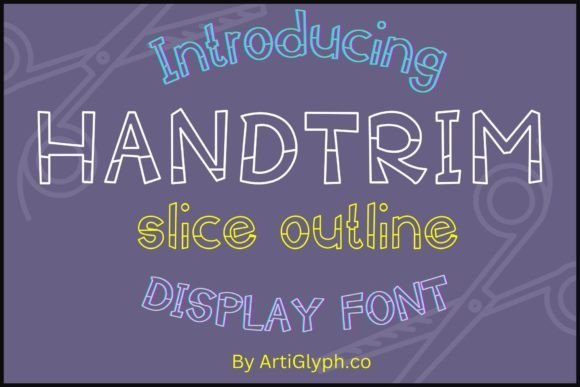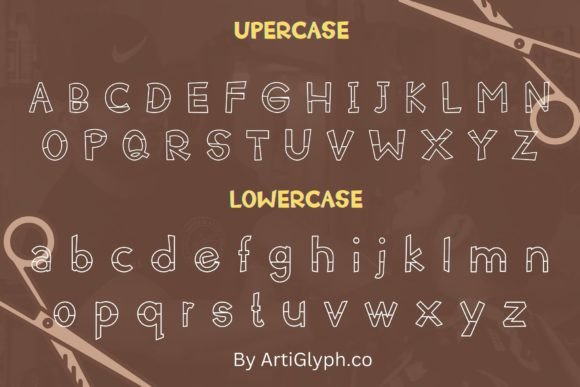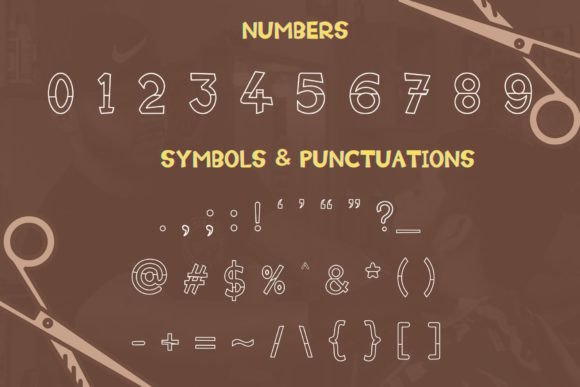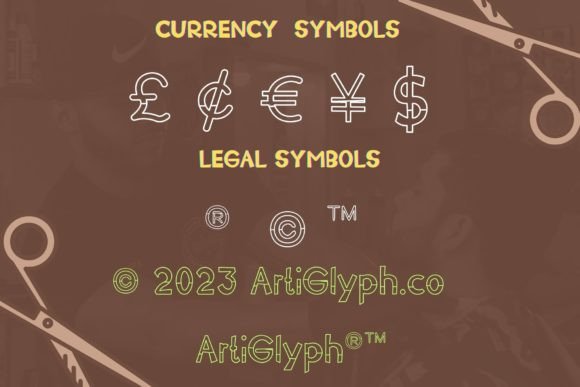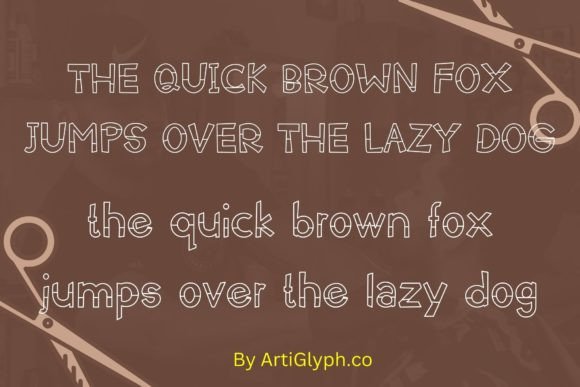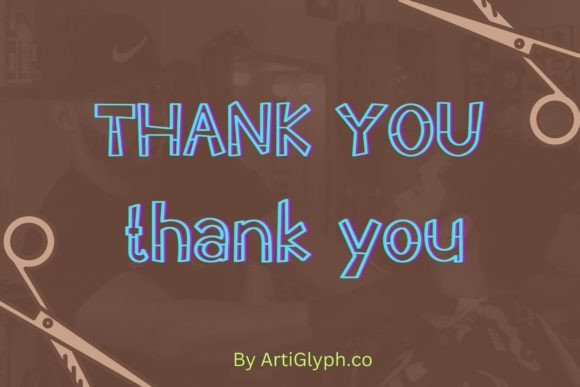
Discover the Perfect Blend of Whimsy and Charm with Handtrim Outline Font
Enter Handtrim Outline Font, a modern decorative handwritten font that adds a touch of whimsy and individuality to any design. Its playful letterforms and natural, handwritten style make it the perfect choice for designers looking to add a charming and personal feel to their projects. With Handtrim Outline Font, you can infuse your designs with a sense of personality and uniqueness that’s hard to find with more traditional fonts.
Handtrim Outline Font Key Features
- Unique Characteristics: Handtrim Outline Font features a distinctive hand-drawn design with bold lines and subtle imperfections, giving it a unique and artistic feel.
- Script and Font Style: The font includes a variety of script and font styles, including regular, bold, italic, and bold italic, allowing for flexibility in design and typography.
Designer Review: Handtrim Outline Font
As a designer, I’m always on the lookout for unique and stylish fonts that can elevate a design. The Handtrim Outline Font caught my eye with its elegant and minimalist aesthetic. ✨ The delicate outlines and subtle details add a touch of sophistication to any design. I love how it pairs well with bold and bright colors, creating a beautiful contrast that grabs attention.
- Highly versatile and suitable for a wide range of designs, from fashion and lifestyle to editorial and corporate.
- The font’s light weight makes it easy to read, even at small sizes.
- Works well in both digital and print formats.
However, I do have some reservations about the font. ⚠️ The lack of a bold weight option can limit its use in certain situations, such as headlines or titles. Additionally, the font may not be suitable for body text due to its delicate nature, which can make it difficult to read at longer lengths.
Overall, I’d give the Handtrim Outline Font 4 out of 5 stars. While it has some limitations, its unique style and versatility make it a great addition to any designer’s toolkit. With a bit of creative experimentation, you can unlock its full potential and create stunning designs that stand out from the crowd.
Tips for Getting the Most Out of Handtrim Outline Font
Use the layer blending options or layer styles to customize the outline effect.
Combine Handtrim Outline Font with other design elements to create a unique look.
Handtrim Outline Font is suitable for:
Graphic design projects, such as posters and flyers.
Typography-based designs, such as logos and branding materials.
Illustrations and digital art projects.
Alternatives to Handtrim Outline Font
Abril Fatface is a beautiful, elegant font with a similar outline feel to Handtrim Outline Font. It is perfect for use in titles, headings, and other text elements where a touch of sophistication is needed.
Comparison to Handtrim Outline Font: Abril Fatface has a more refined and classic look, making it a great choice for traditional or vintage-inspired designs.
Playfair Display is a luxurious and elegant script font that is ideal for use in headings, titles, and other text elements where a touch of sophistication is needed. It has a similar outline feel to Handtrim Outline Font, but with a more refined and classic look.